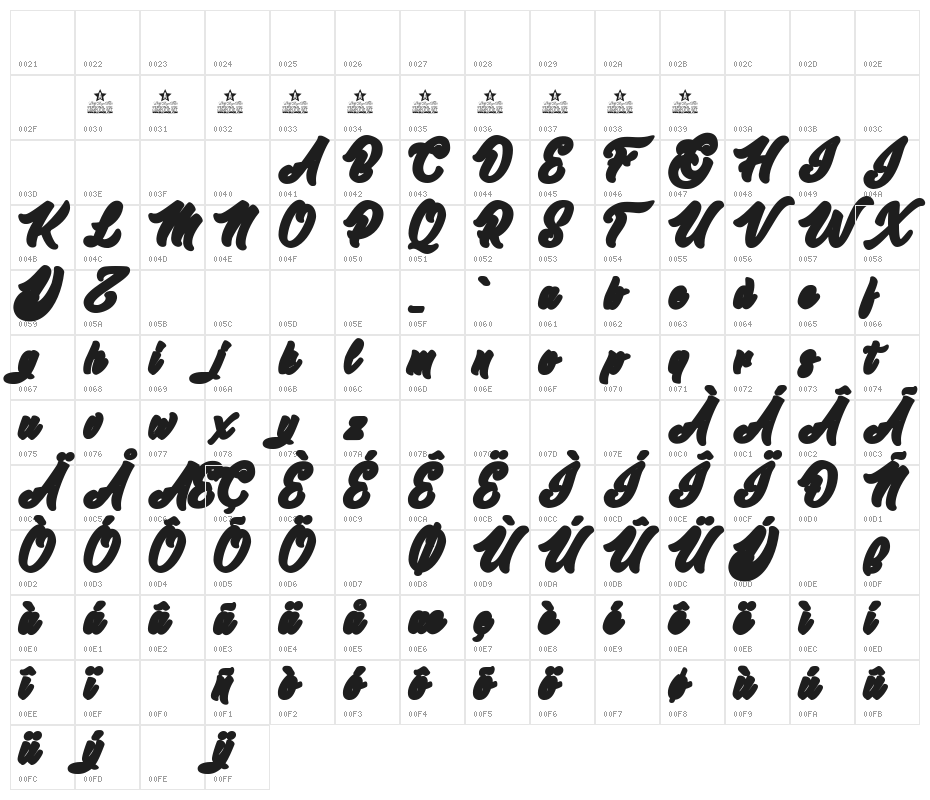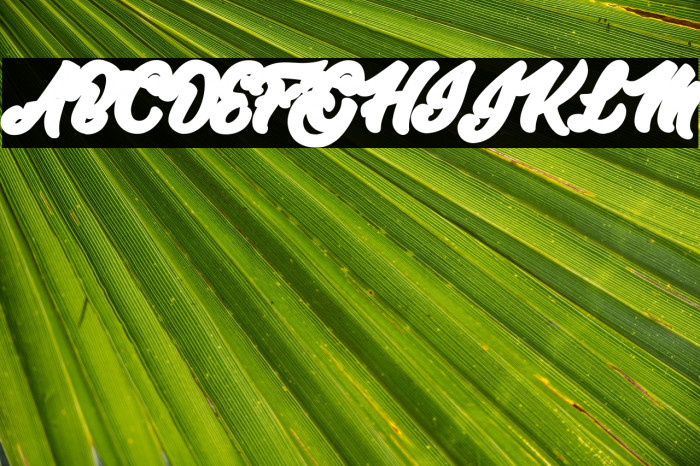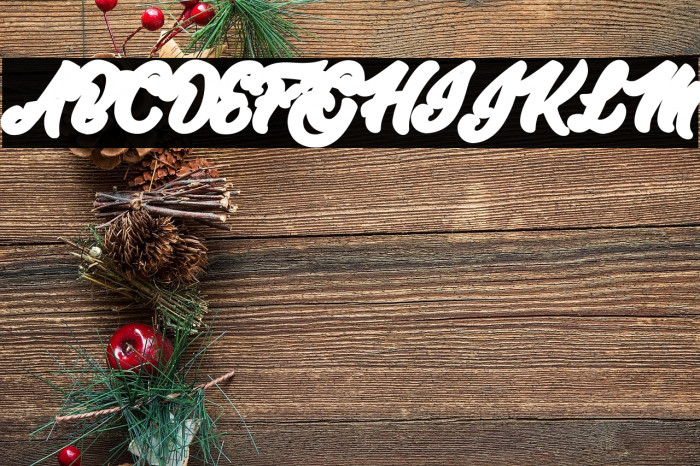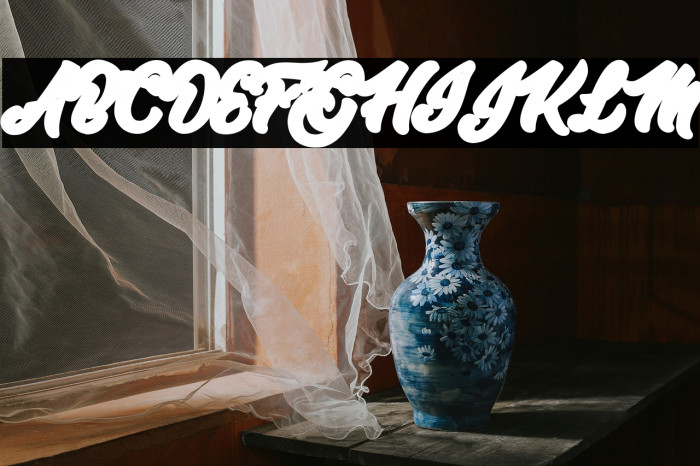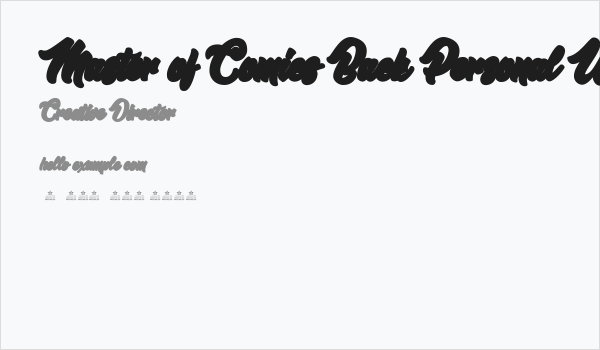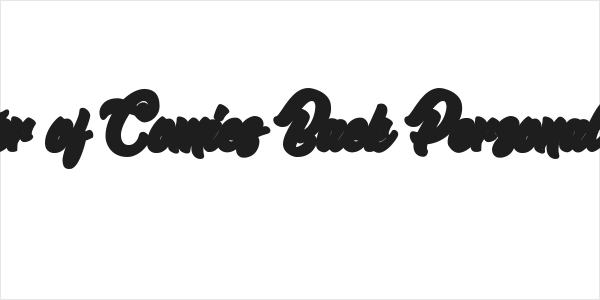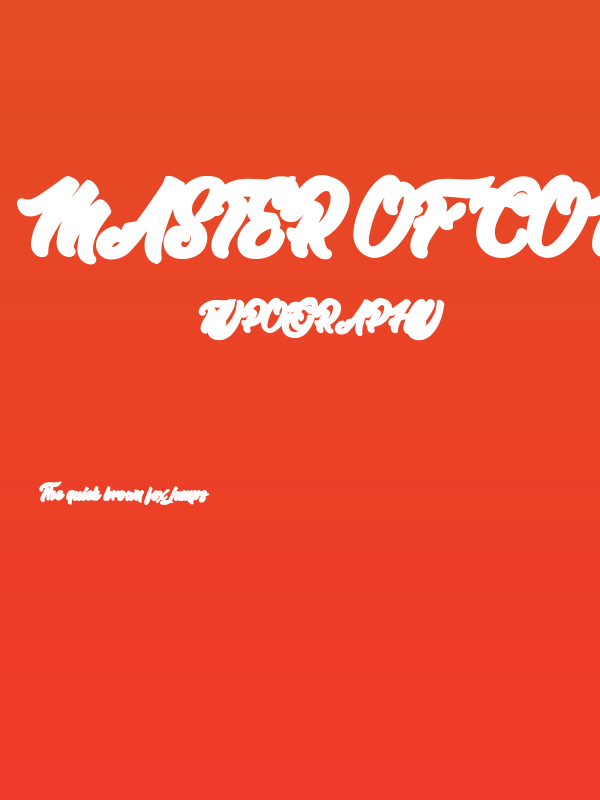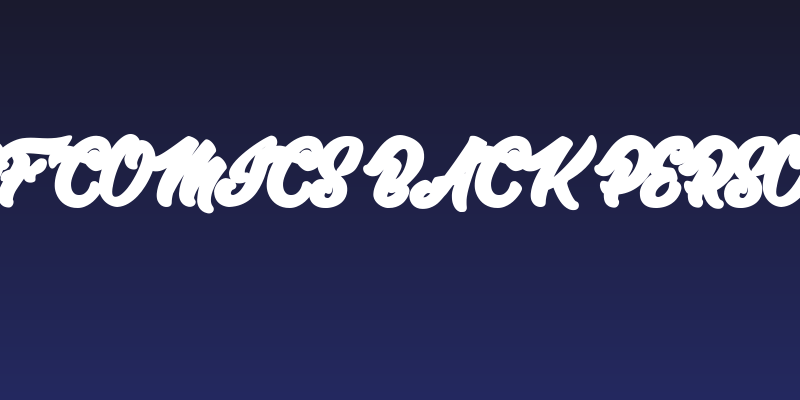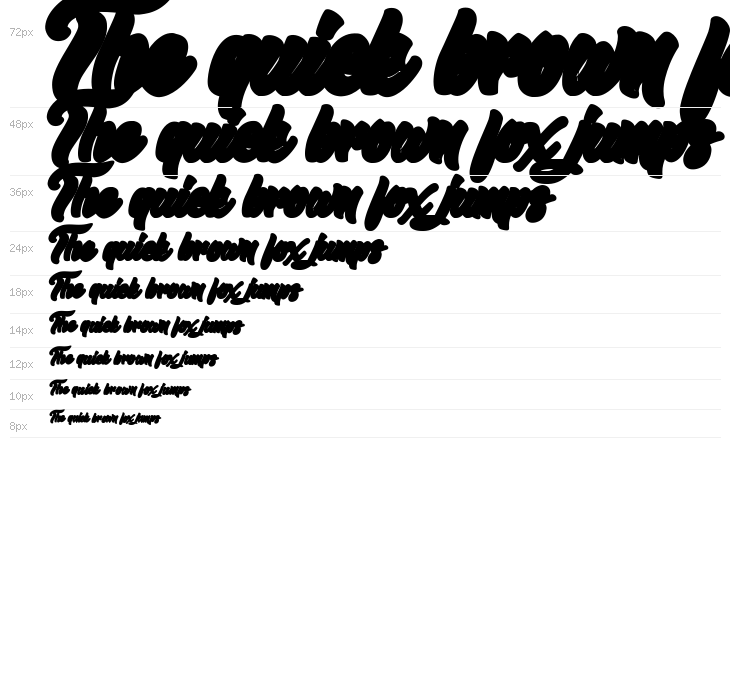
Master of Comics Back Personal Use Font
Master of Comics Back Personal Use Description
This font features a bold, dynamic script style with a strong presence. The characters are interconnected, creating a fluid and cohesive look. The strokes are thick and rounded, giving the font a playful yet assertive appearance. The uppercase letters are particularly striking, with exaggerated curves and flourishes that add a sense of movement. The lowercase letters maintain the same boldness, ensuring consistency throughout. The numbers and special characters follow the same design principles, making this font versatile for various uses. Its bold nature makes it ideal for attention-grabbing headlines or logos.